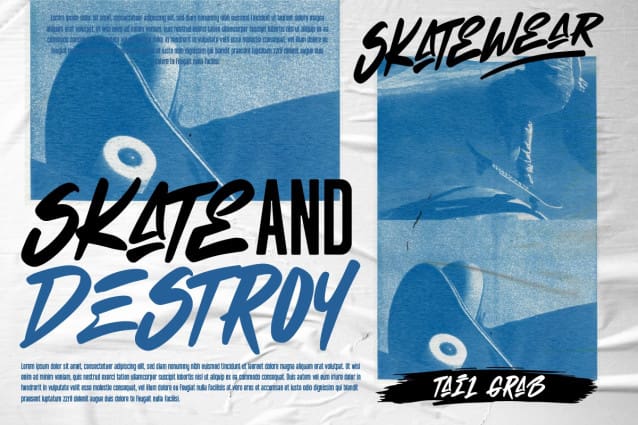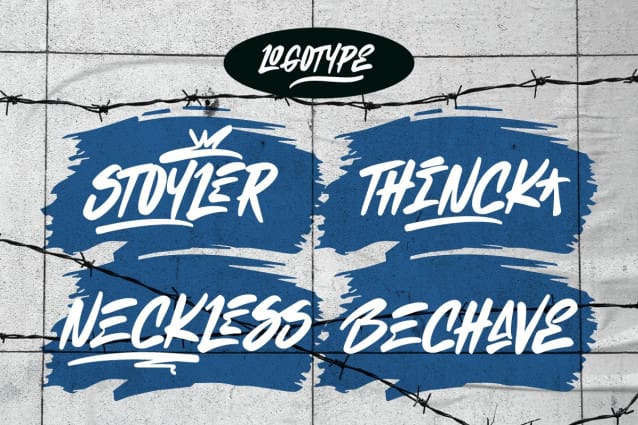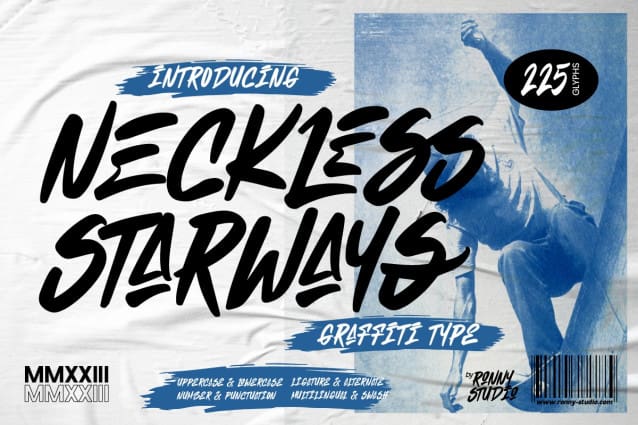
Neckless Starways Font
Neckless Starways Font is distinctive handwriting and encapsulates the essence of street style. It gives every design project an urban vibe with its rugged and raw characteristics. This font is the perfect choice for people looking for a strong and influential typeface inspired by the rebellious spirit of street culture and graffiti.
This font is designed to be versatile, making it suitable for a wide range of creative projects. Whether you’re working on a skateboard deck design, a streetwear stuff, or a poster for an underground event, this font will infuse your work with urban attitude and a raw, handcrafted feel. The uppercase characters in Neckless Starways are bold and impactful, while the lowercase letters exhibit a slightly more refined style, providing a balanced mix of legibility and street-inspired aesthetics.
This typeface is perfect for an poster event, movie title, streetwear stuff, magazine layout, fashion brand, quotes, or simply as a stylish text overlay to any background image.